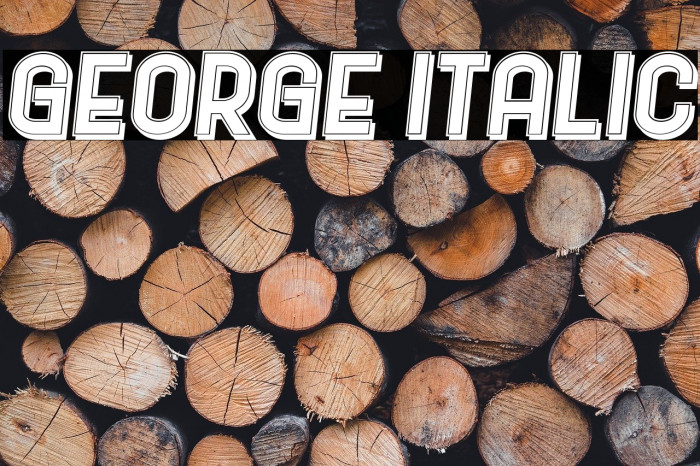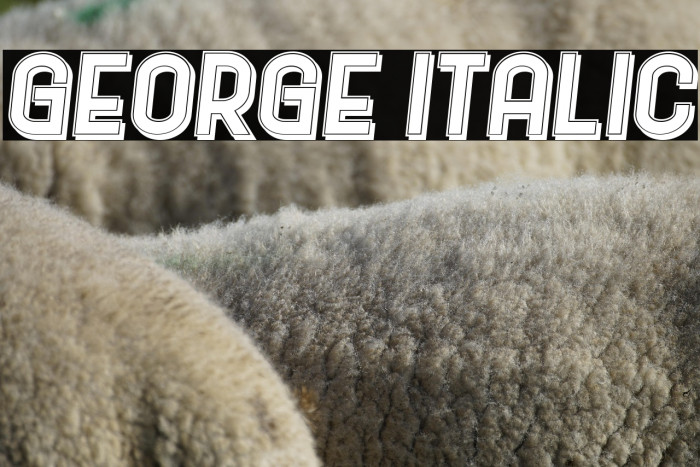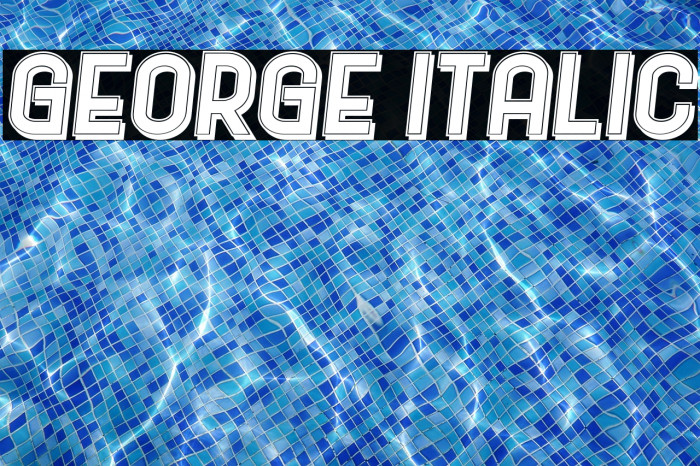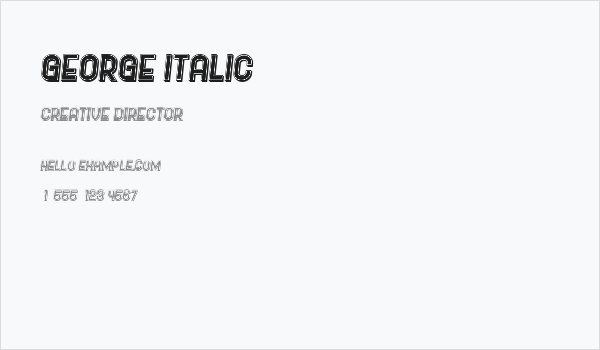
George Italic Font
George Italic Description
This font features a bold, italicized style with a strong presence. The characters are outlined, giving them a three-dimensional effect that adds depth and interest. The uppercase and lowercase letters maintain a consistent slant, enhancing the italic nature of the font. The numbers and special characters are designed to match the boldness and style of the alphabet, ensuring a cohesive look across all text. The font's design is modern and eye-catching, making it suitable for projects that require a strong visual impact.
| Proposed Projects | Ideal for headlines, posters, branding materials, and any design needing a bold statement. |